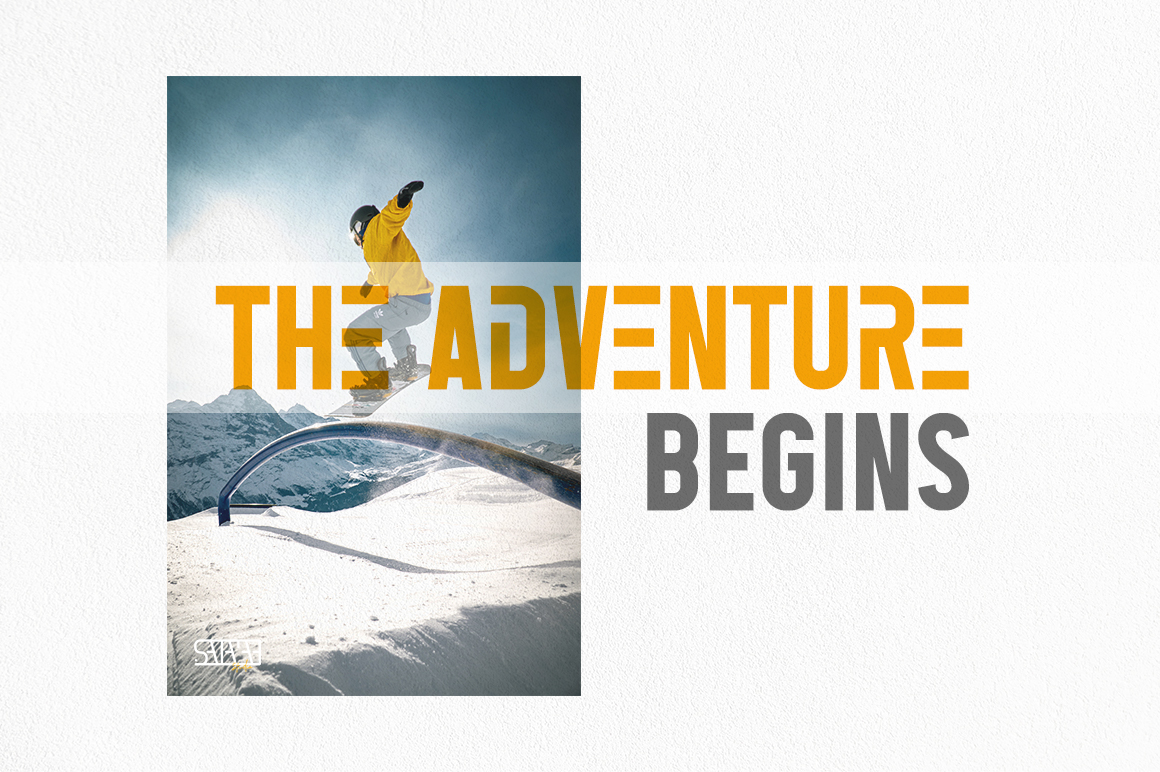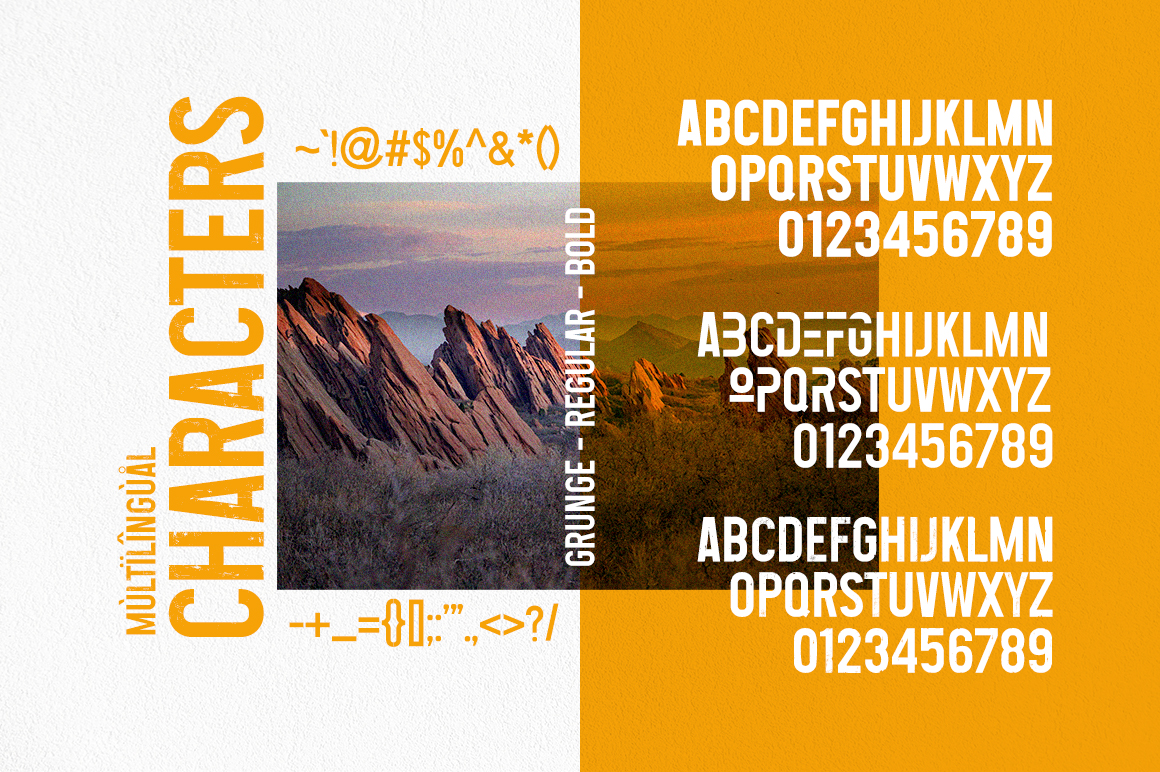
Tactico Sans Serif Font
This is sans serif font family with regular, bold, and grunge style. Can be used for logos, poster, magazine, presentation, and more. Support multilingual letters.